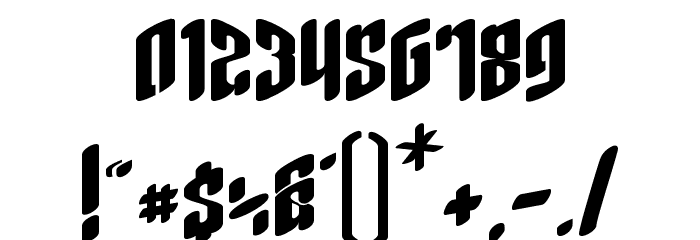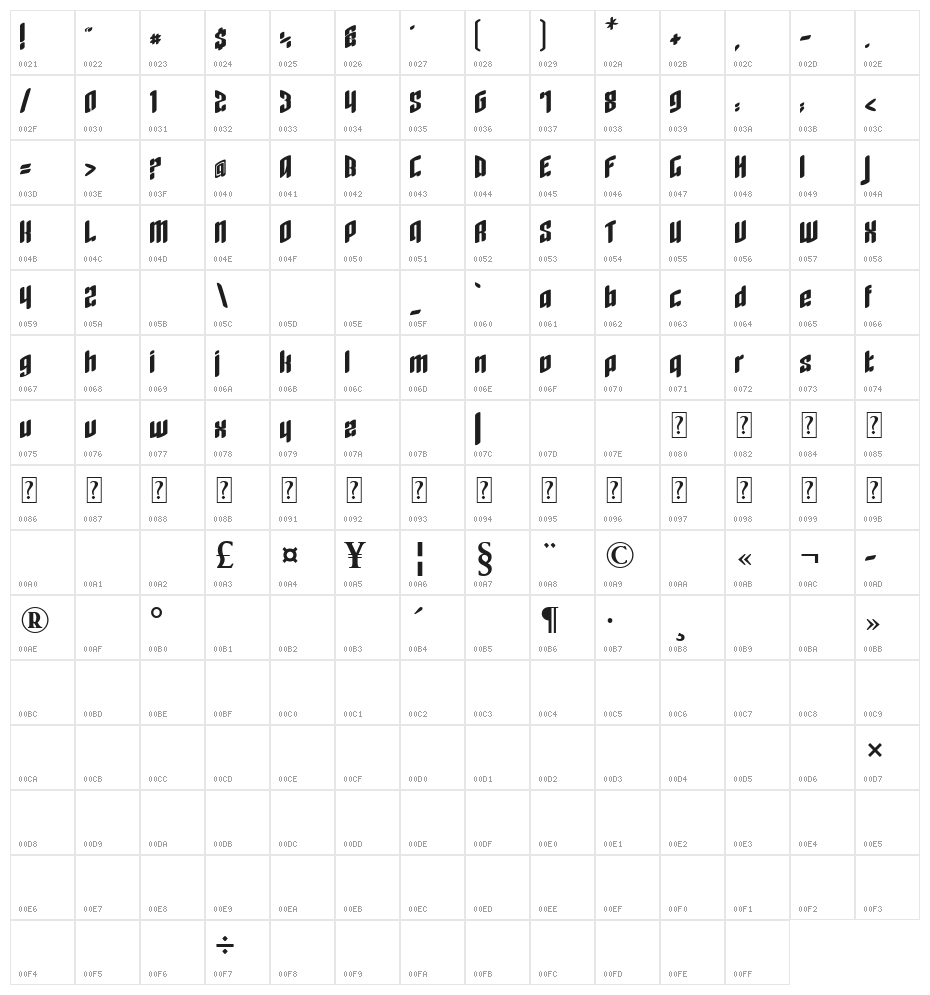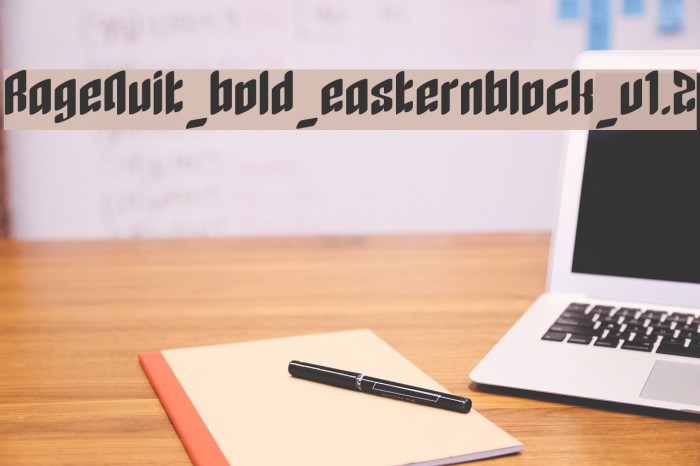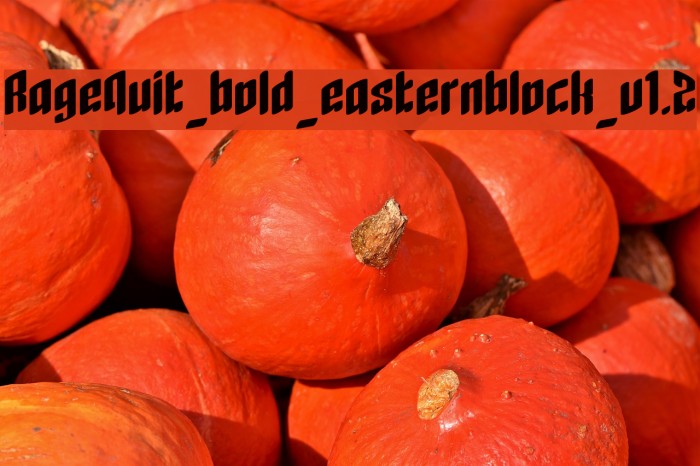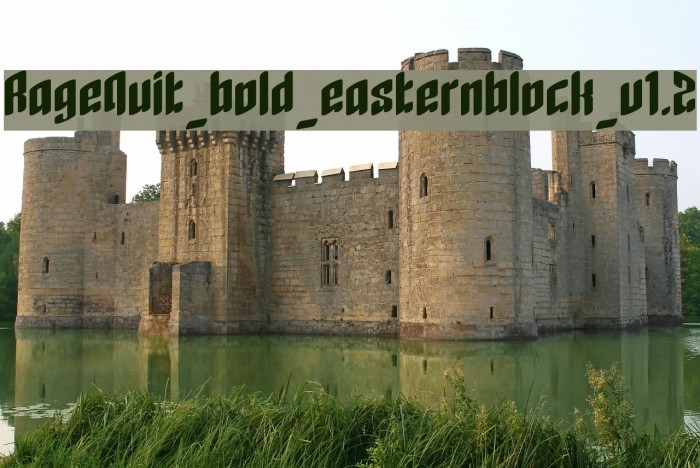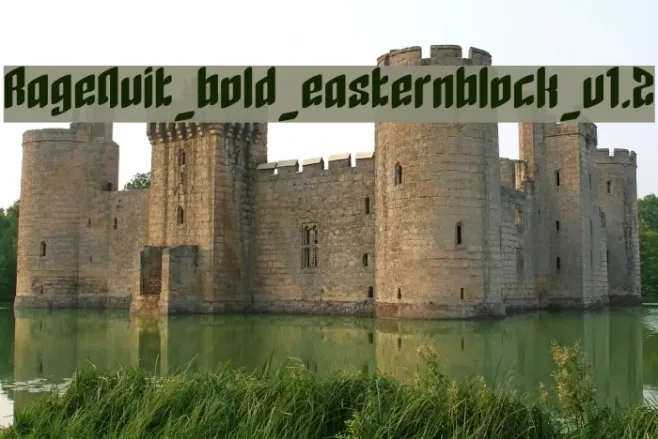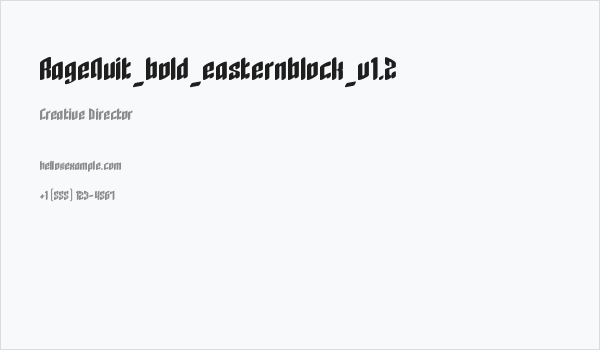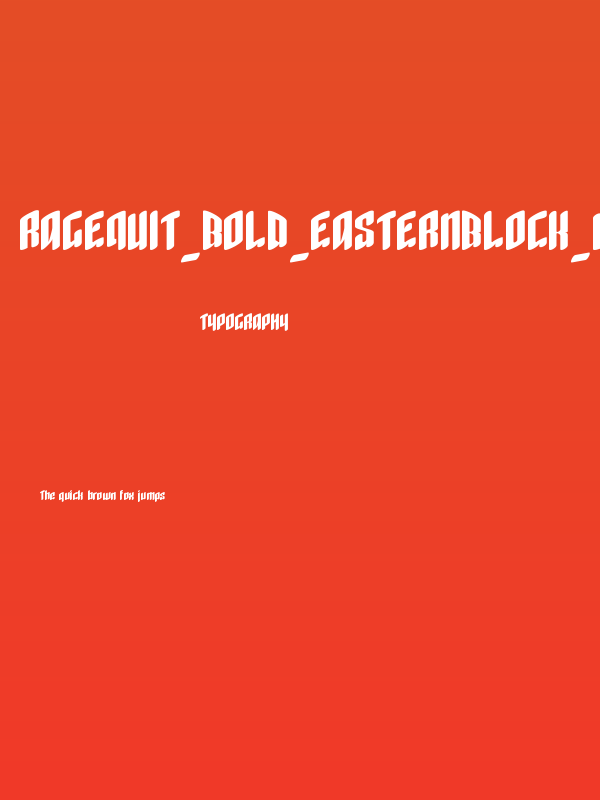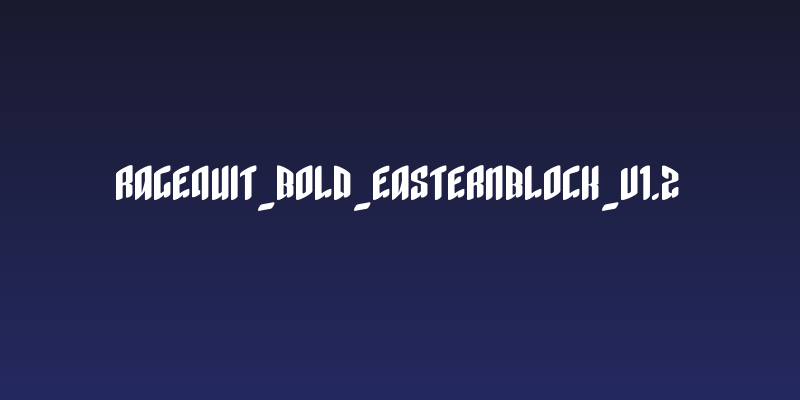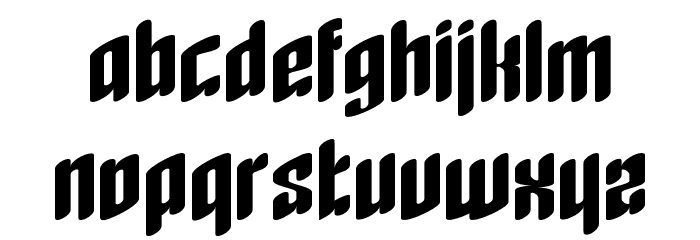
RageQuit_bold_easternblock_v1.2 Font
RageQuit_bold_easternblock_v1.2 Description
This font exhibits a bold and angular design, reminiscent of industrial and Eastern Bloc aesthetics. The characters are sharply defined with a consistent slant, giving a sense of movement and urgency. The uppercase and lowercase letters maintain a uniform width, contributing to a cohesive look. Numbers and special characters follow the same stylistic approach, ensuring versatility across different uses. The font's strong geometric shapes make it stand out, while the slanted orientation adds a dynamic touch. It's ideal for projects that require a bold statement or a retro-futuristic vibe.
Overall StyleModern, Industrial
Proposed ProjectsIdeal for posters, video game titles, branding for tech companies, or any project needing a strong, dynamic presence.